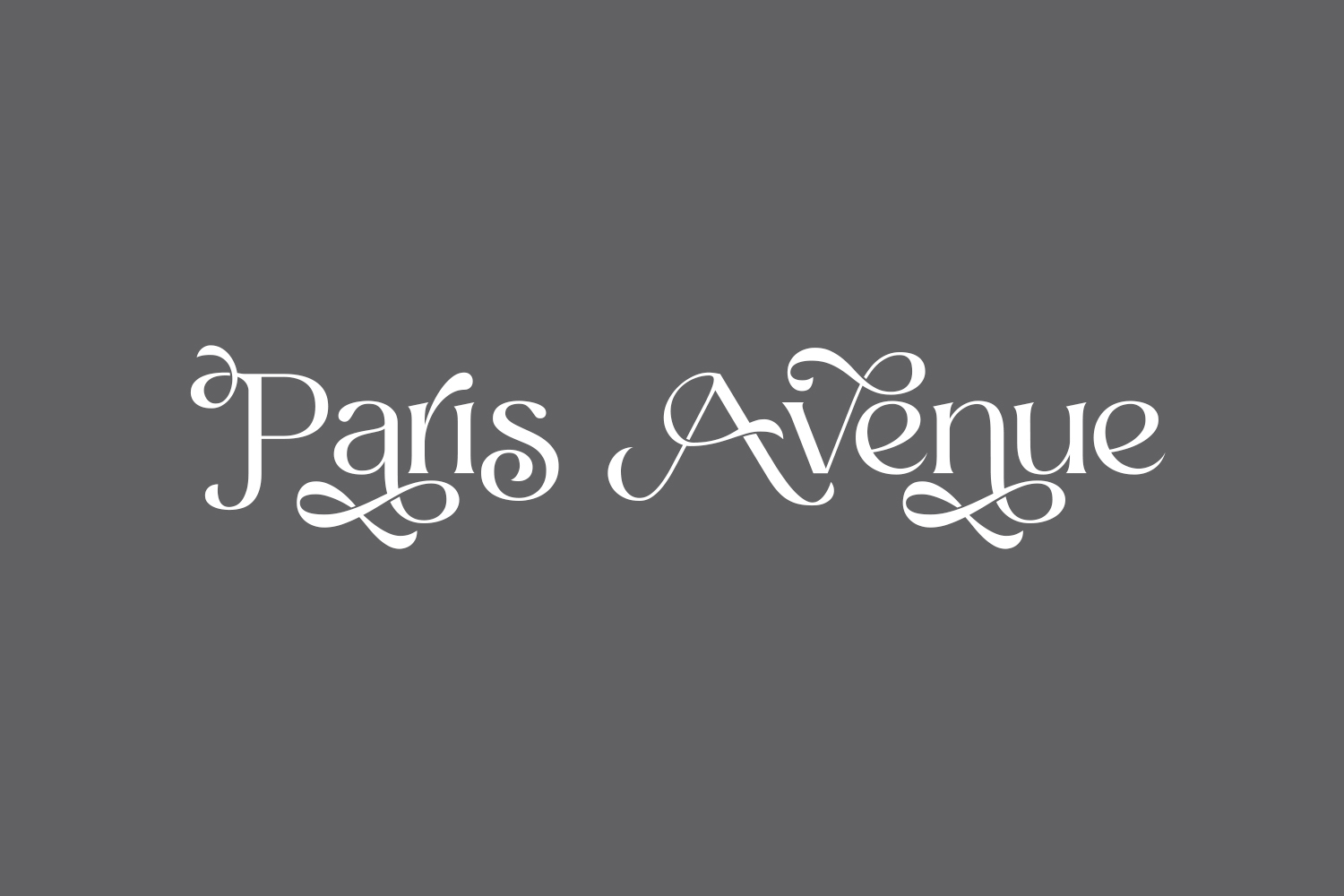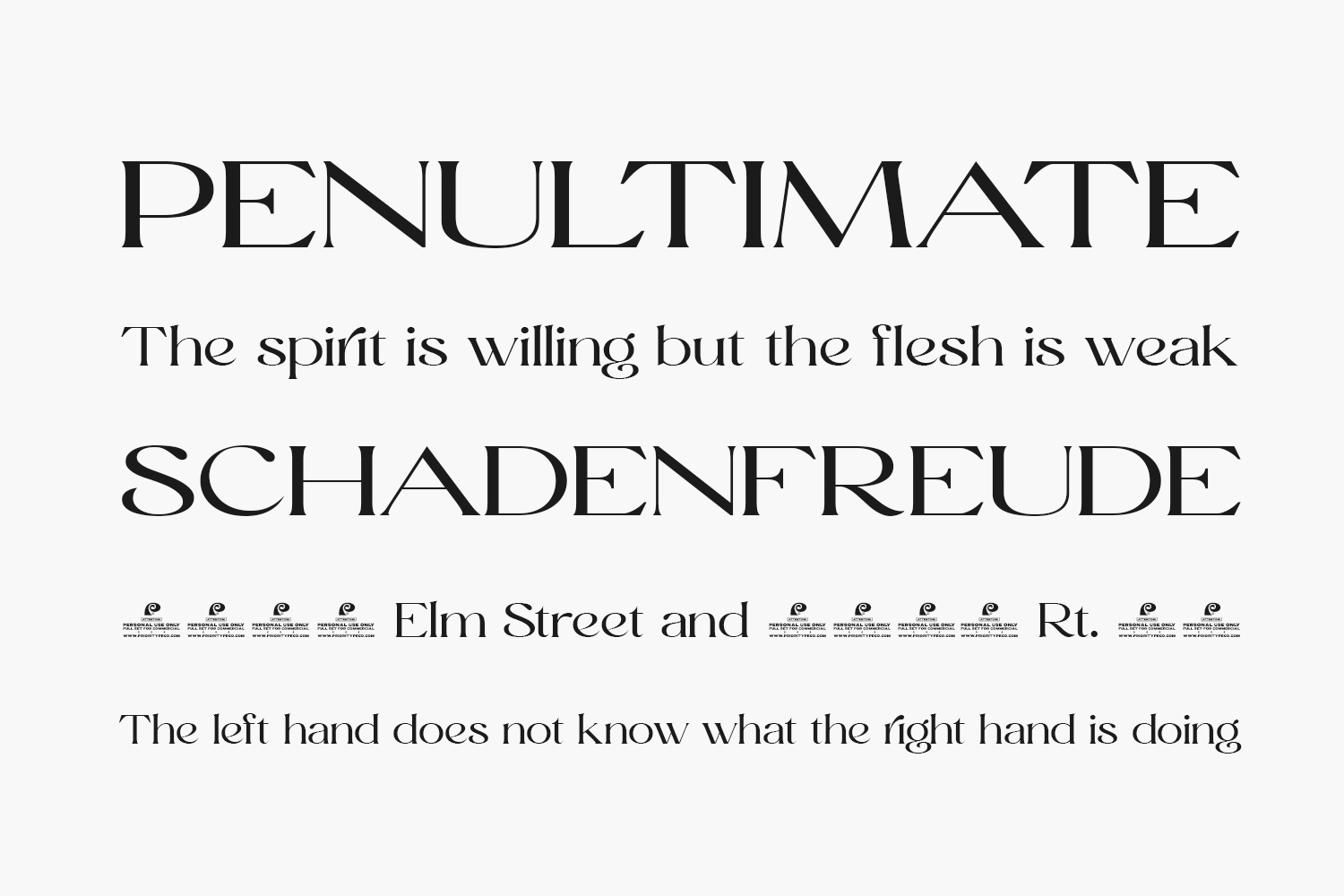
Introducing Paris Avenue Free Font: a refined and captivating serif font infused with contemporary flair. Tailored for upscale, stylish, and feminine endeavors, this font effortlessly complements modern and chic design ventures. Download the font for free if you need it for personal use or purchase the full version for commercial use.
Designed by Prioritype Co